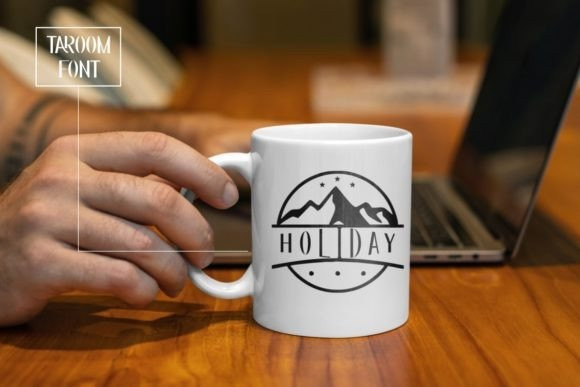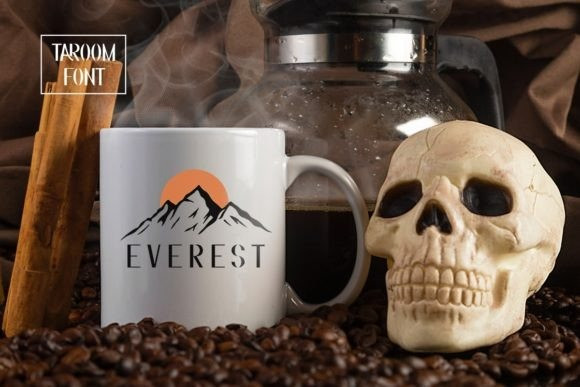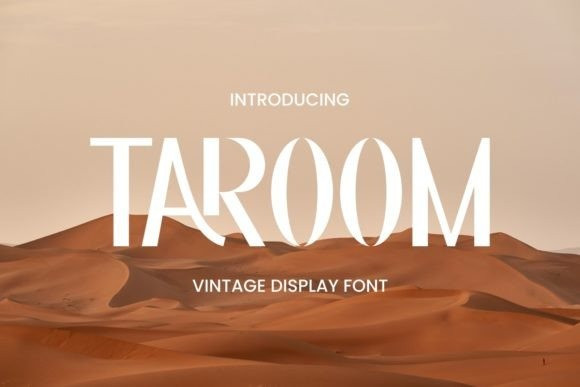
Taroom Font
Taroom Font is an enchanting vintage display font that brings the timeless charm of the past to your designs. Inspired by classic typography from the early to mid-20th century, this font exudes a sense of nostalgia and captures the essence of old-world craftsmanship.